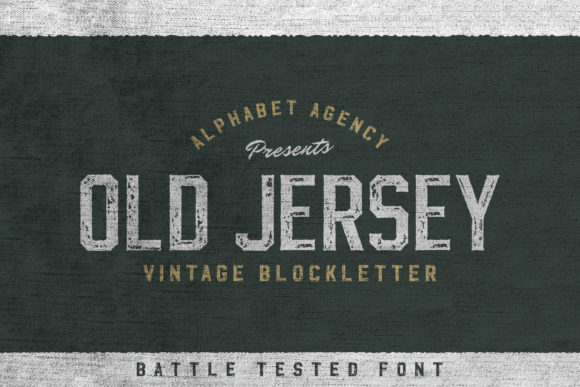
Looking for the best fonts for vintage book design? Look no further than Old Jersey Font from Alphabet Agency! This cool and stylish font is perfect for any project that requires a vintage feel.
Old Jersey is a display font with a rough, textured look that is sure to capture attention. It is an adaptable font that can be used for a variety of design ideas. Whether you are creating a book cover, designing a logo, or working on a website, Old Jersey will add a distinct touch to your project.
The unique vintage style of Old Jersey is perfect for designers who want to add a touch of nostalgia to their work. This font is perfect for anyone who wants to create a retro feel, whether for a book, a website, or any other project. The rough texture of the font gives it an authentic, handmade feel that is sure to impress.